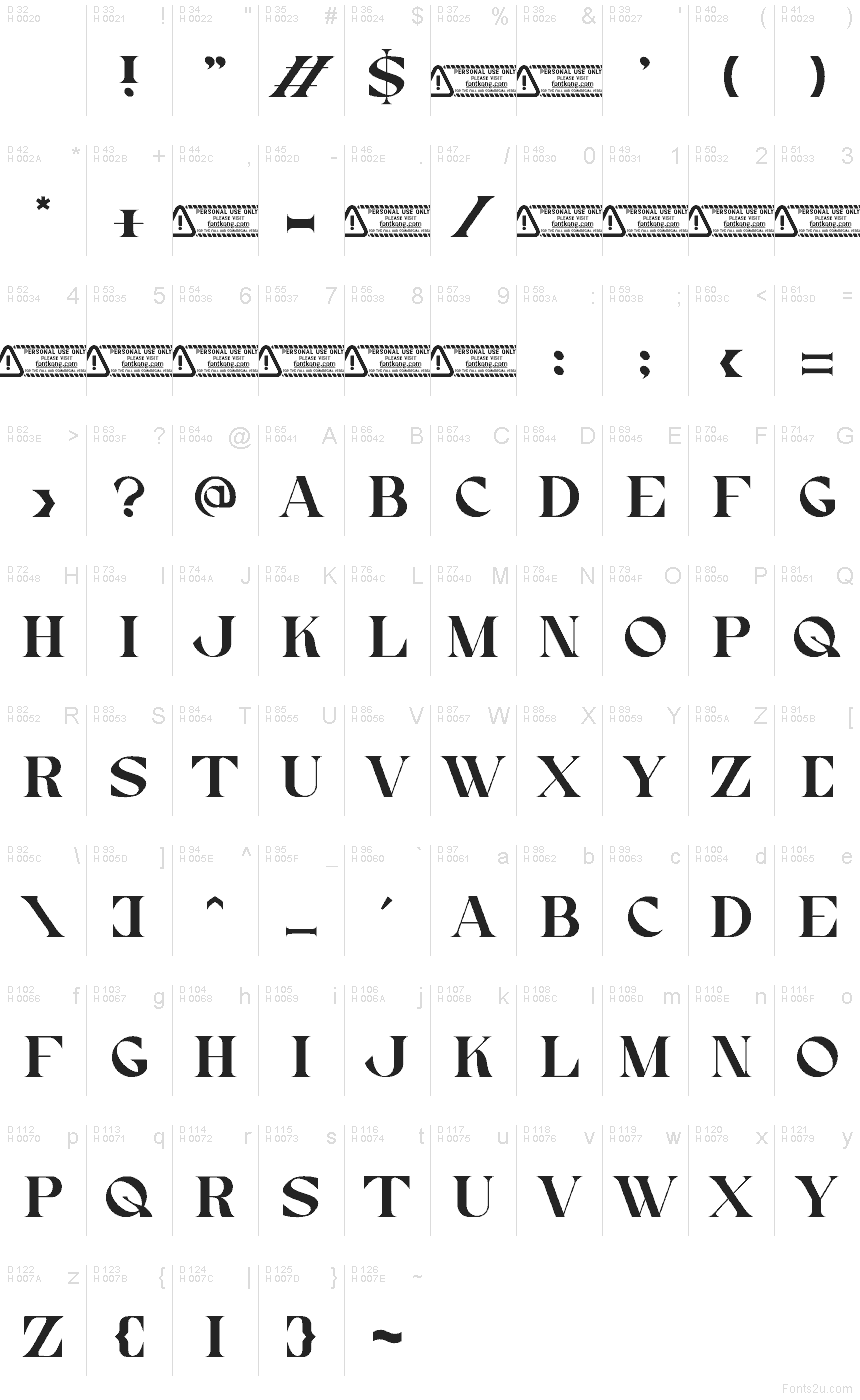
Quality font by Kong Font is a free serif with an elegant and classic style. The overall blend feels timeless and formal along with slightly ornamental details that finish each character. This formal font checks all possibilities to present itself as an authoritative choice in all the possible design projects where you might use it.
Use Quality in headlines of books, magazines, newspapers, or formal publications like annual company reports. Package designs for premium products like perfumes creatively use Quality font to attract customers. Wedding invitation cards are another go-to visual work which can benefit from this incredible typeface. Other uses include typography works for advertising posters, monogram logos, certificates – printed or online – professional business/calling cards, letterheads and envelope design for either your or your client’s business.